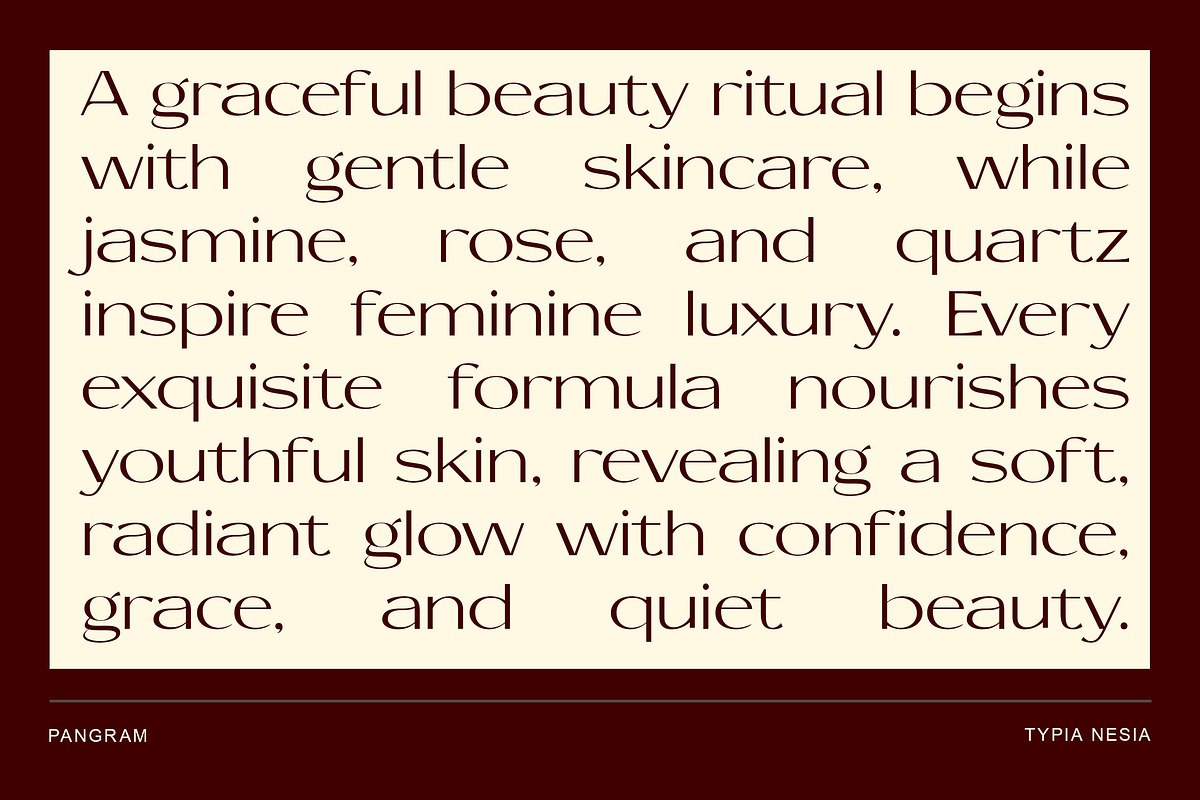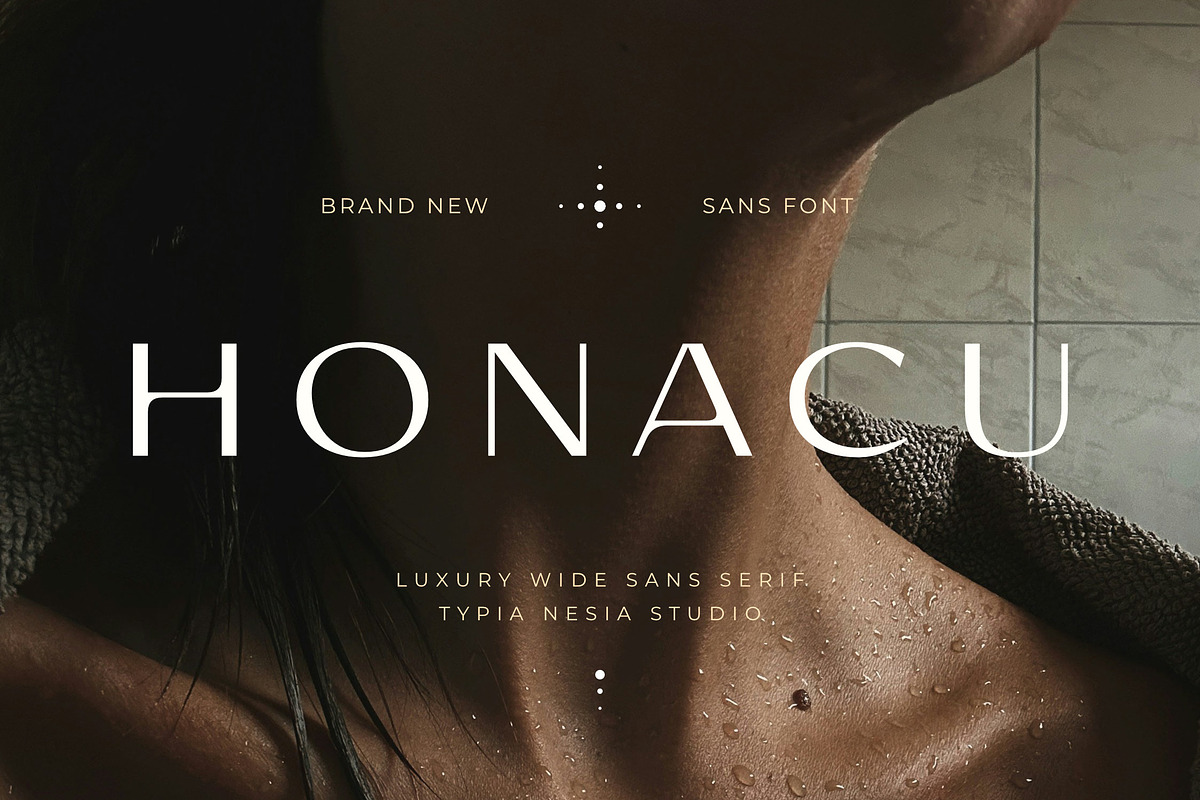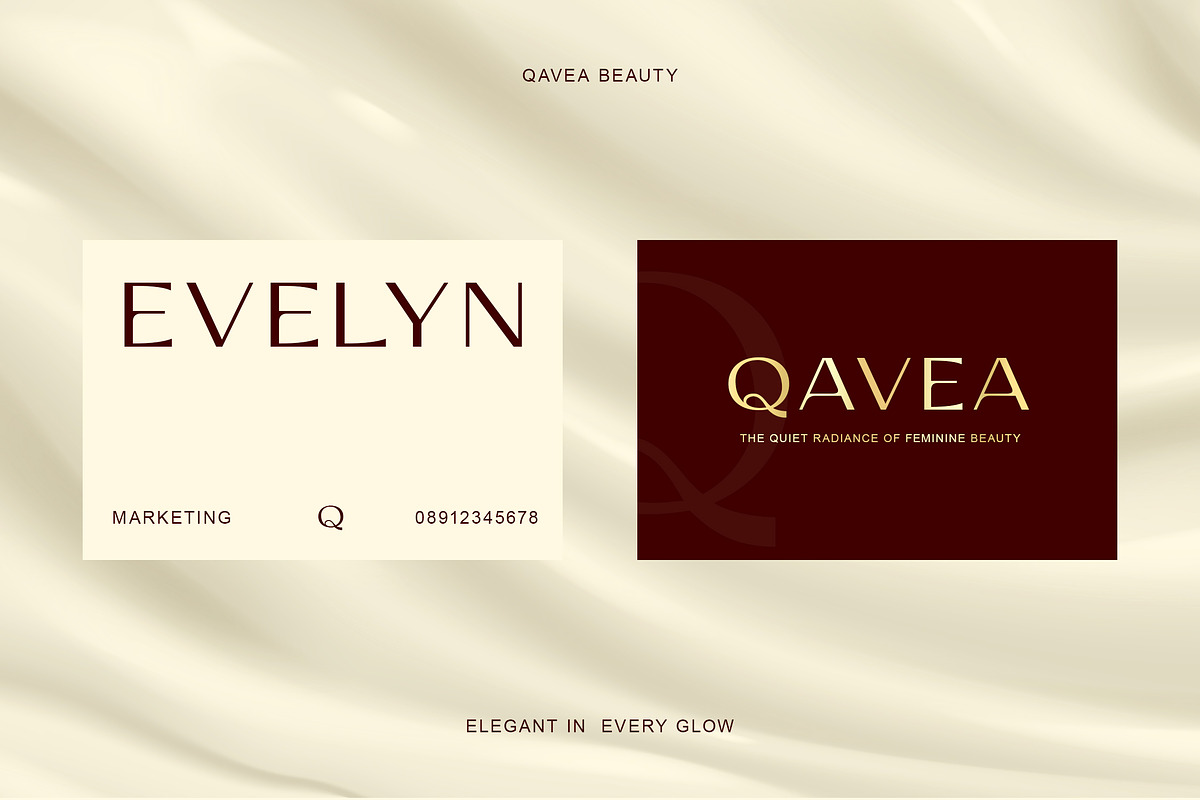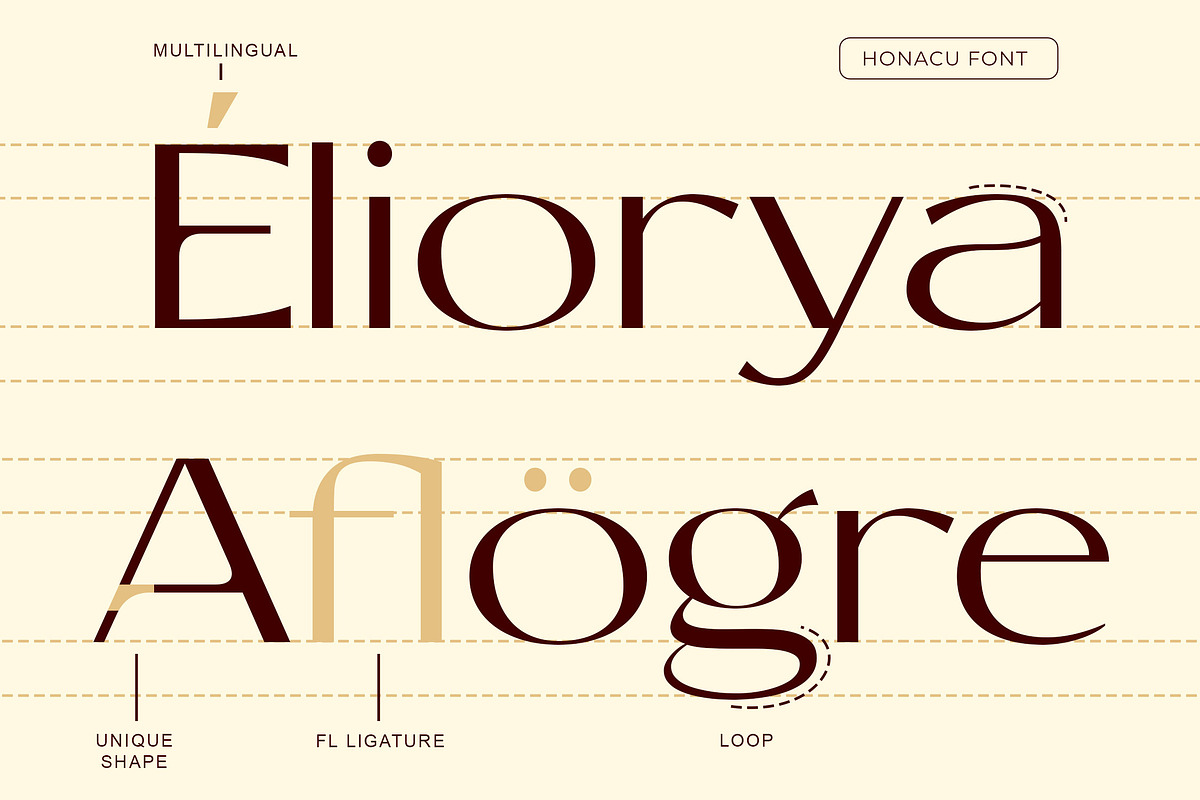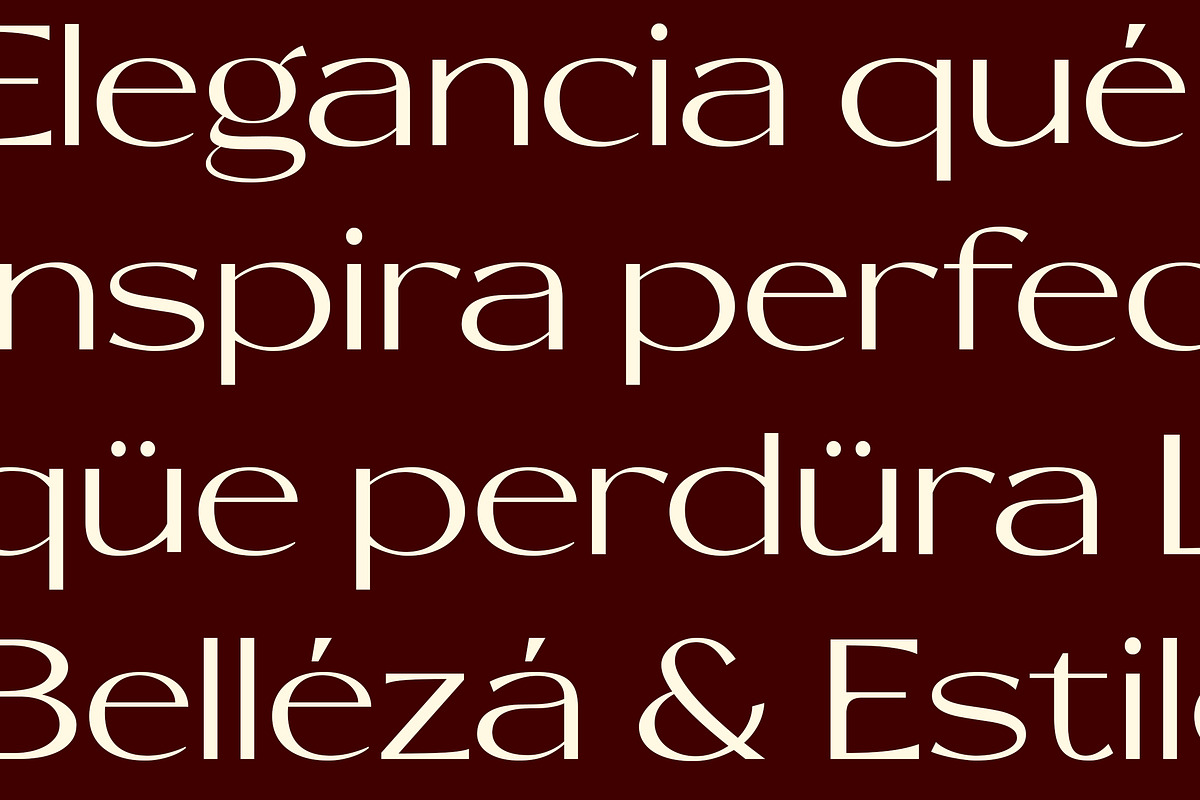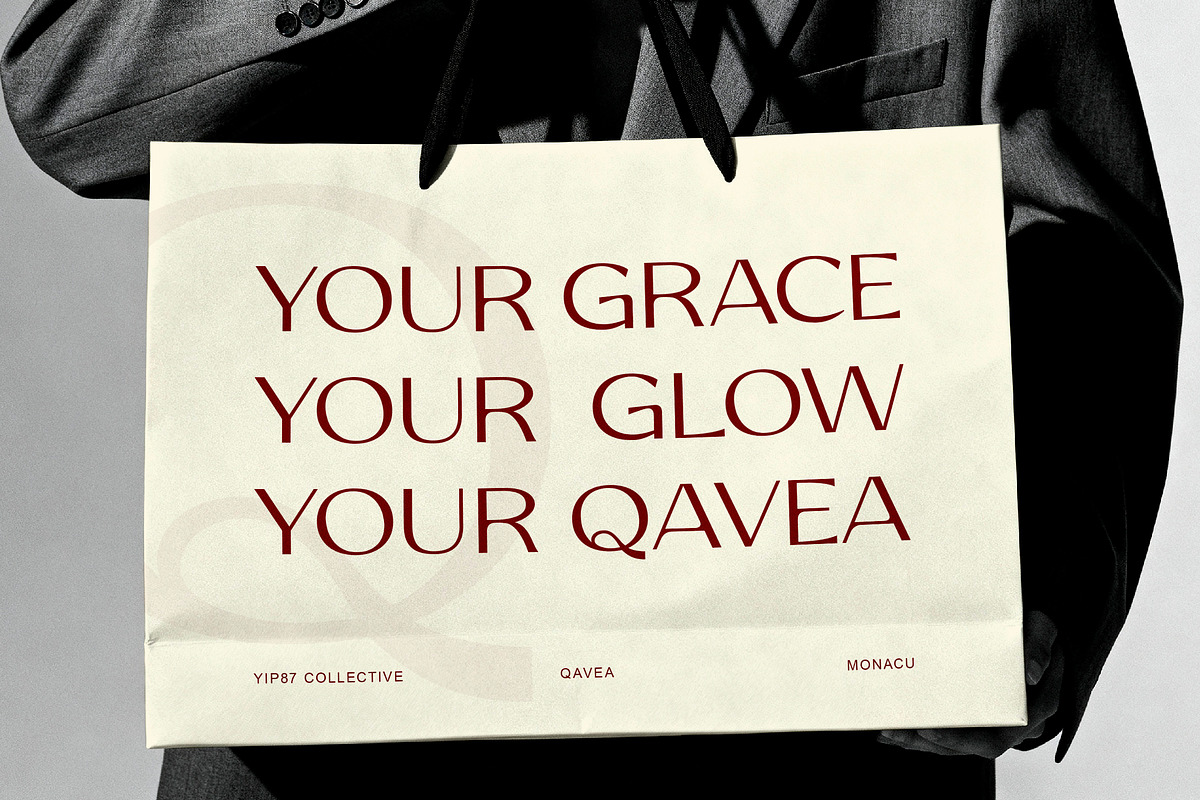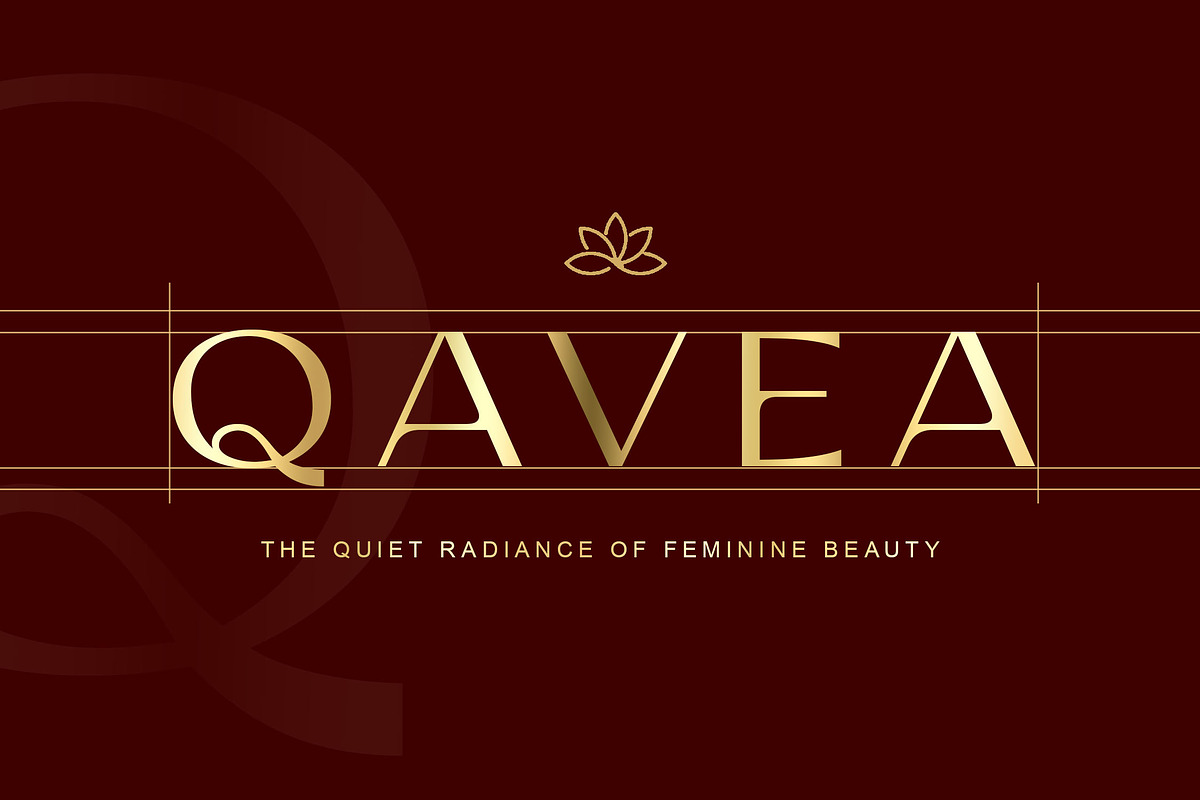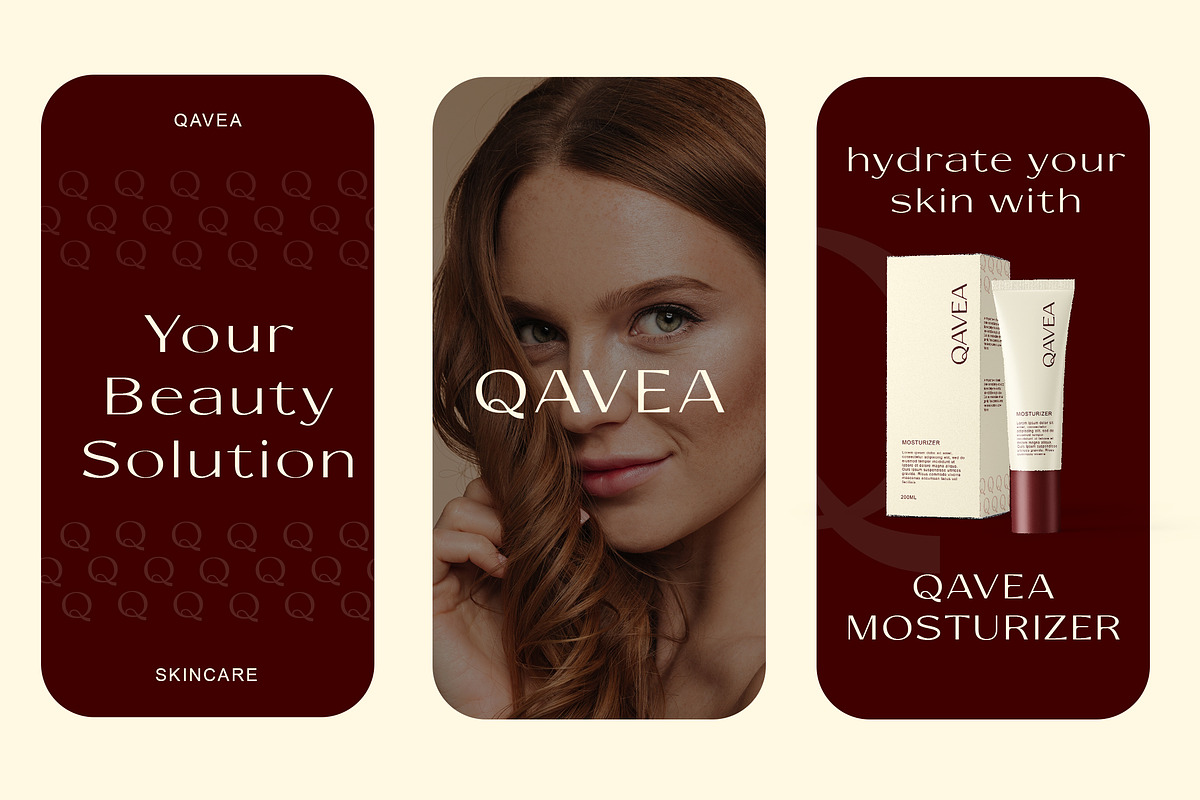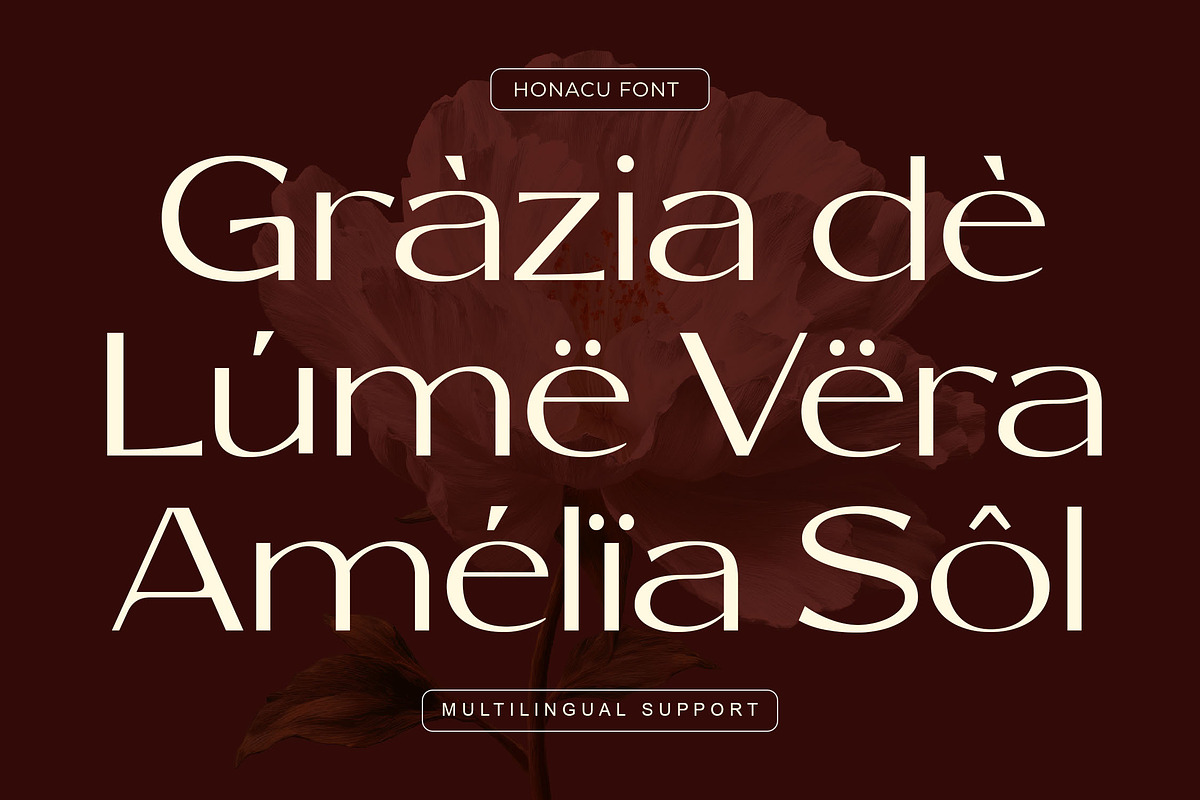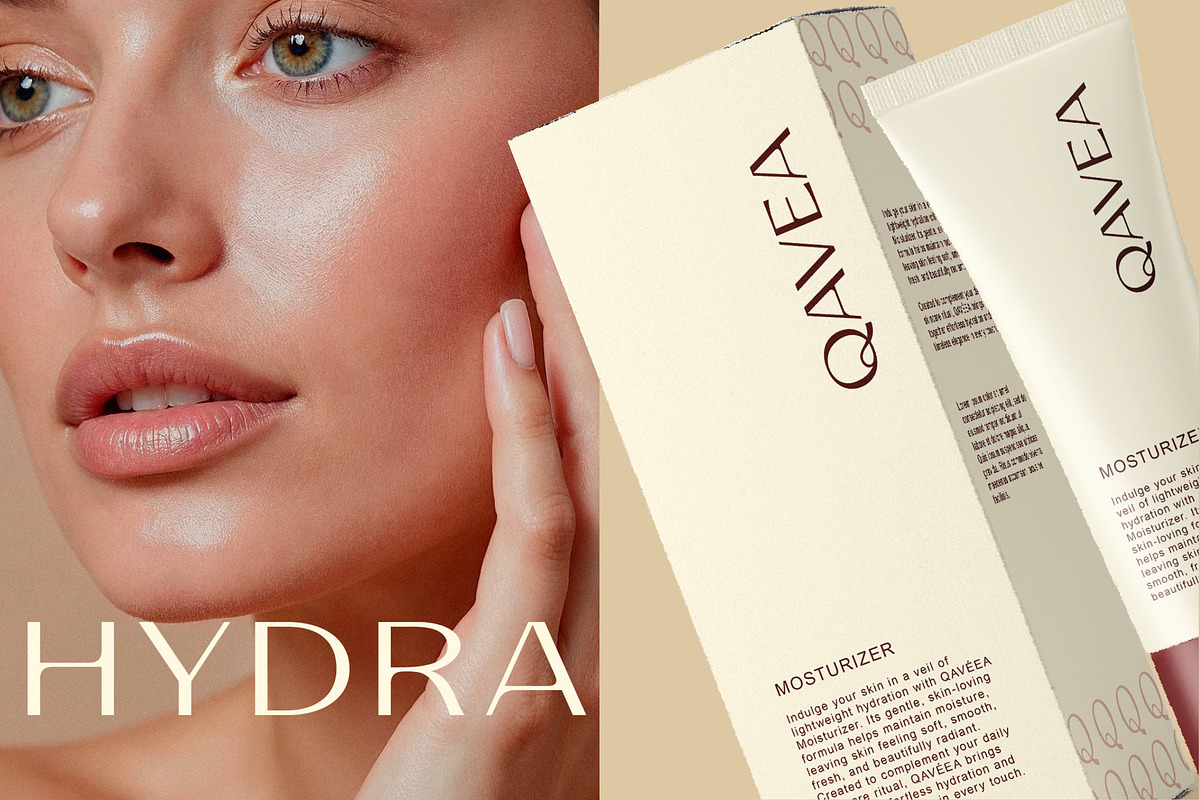
Honacu - Modern Classy Sans Serif
Honacu is a refined, expanded sans-serif typeface designed specifically for beauty, skincare, and high-fashion brands seeking a sleek, modern, and high-end visual identity.
Designed to convey luxury and timeless sophistication, it delivers a high-end visual impact that stands out across premium branding and beauty packaging. Perfect for cosmetics packaging, skincare labels, luxury logos, and minimalist editorial layouts. It features wide-set letterforms with subtle high-contrast accents, making it versatile and easy to use across a wide range of design needs. Give your luxury, beauty, and lifestyle brands an effortless aura of prestige with Honacu today!